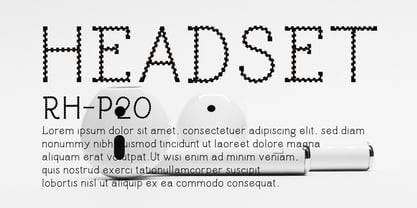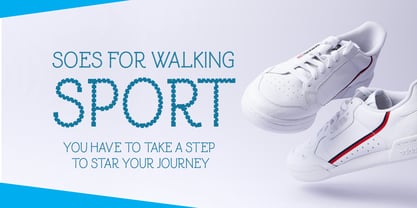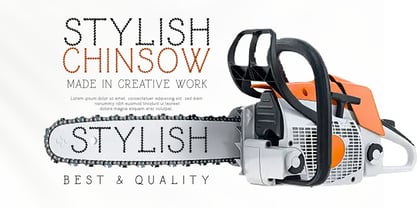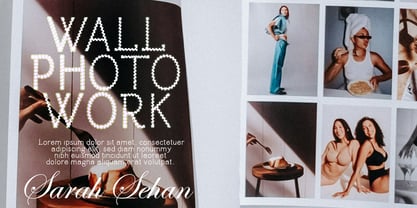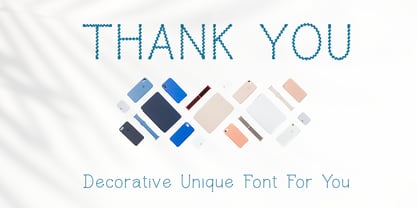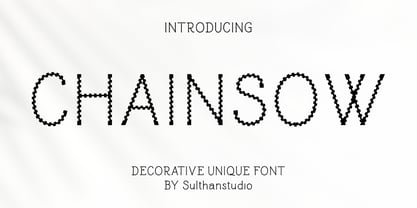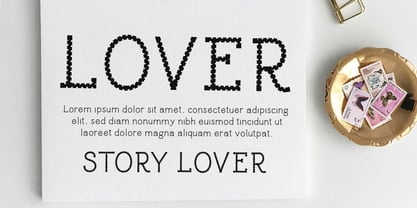
Chainsow
by Sulthan Studio
The Chainsow Font Family was designed by Nasrullah and published by Sulthan Studio. Chainsow contains 2 styles and family package options. More about this family
Introducing our uniquely crafted font, styled after the intricate workings of a wood-cutting power saw. Our font boasts a perfectly curated blend of regular and bold formats, ensuring versatility and personalization. This comprehensive offering includes upper case, lower case letters, numerals, punctuation marks, and even supports multiple languages, creating a rich typographic experience that’s distinctively yours.
Designers: Nasrullah
Foundry: Sulthan Studio